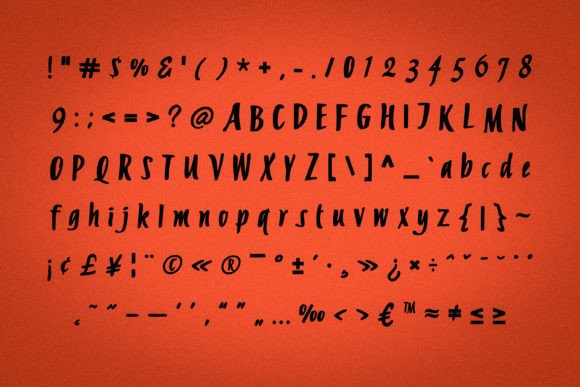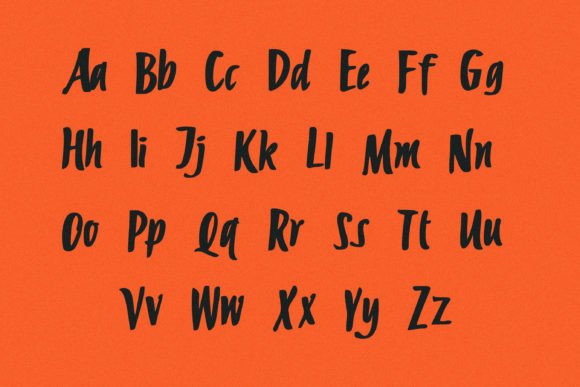
Introduction to Johannesburg Font
Johannesburg is a fun and unique handwritten felt tip marker font.
Trendy and stylish, this font will elevate each of your creations .
Key Features of Johannesburg Font
Why Choose Johannesburg Font?
Johannesburg Font offers exceptional quality and versatility, making it a valuable addition to your design toolkit. Whether you’re creating for personal projects or commercial use, Johannesburg Font delivers professional results.